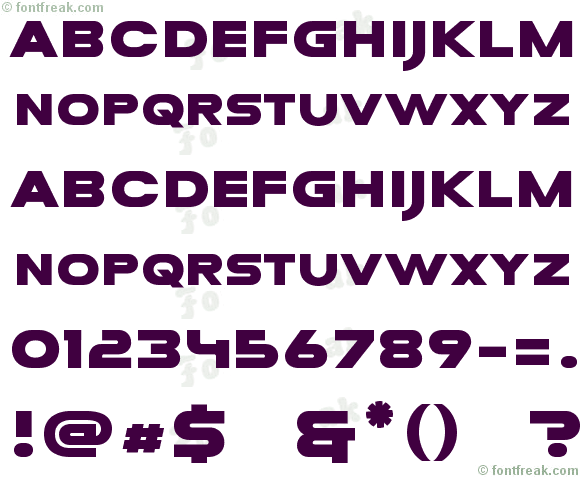
Mesa Grande
About Mesa Grande
Mesa Grande is a striking display typeface designed by Roland Huse, characterized by its bold, sans-serif style that commands attention. With a clean and modern aesthetic, this font features a consistent stroke weight and minimal contrast, making it versatile for various applications. The letters are well-spaced, providing excellent readability whether used in large formats or smaller text. The geometric forms and slightly rounded edges give Mesa Grande a friendly yet professional appearance, perfect for capturing the essence of contemporary design.
This font is ideal for a range of use cases, particularly in branding and promotional materials. Its distinctiveness makes it a superb choice for restaurant menus, where it can convey a sense of modernity and sophistication. Additionally, Mesa Grande shines in event posters, lending a bold presence that can attract attention and convey important information effectively. Graphic designers will also find it suitable for creating eye-catching logos, as well as social media graphics, where a strong visual impact is essential. Small business owners looking to enhance their marketing materials will appreciate its ability to create a memorable brand identity.
Mesa Grande stands out for its ability to merge modern aesthetics with versatility. Whether used in print or digital formats, this font elevates any design project, ensuring that your message is communicated with clarity and style. For those looking to enhance their design toolkit, the Mesa Grande font free download offers an excellent opportunity to incorporate this distinctive typeface into your projects.